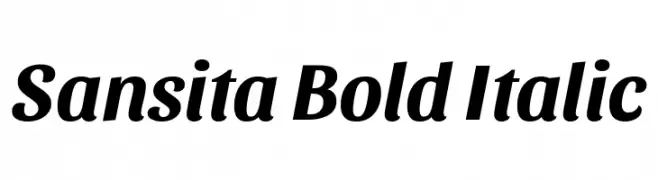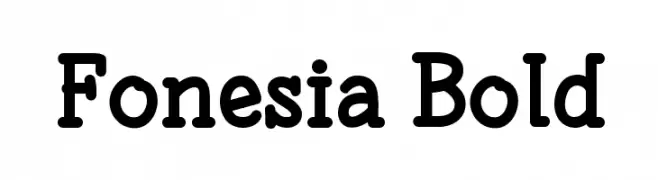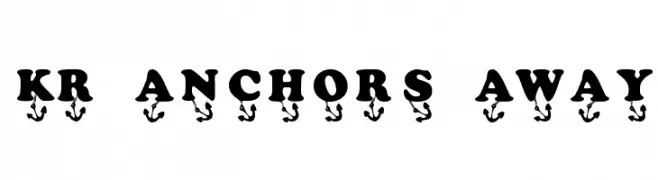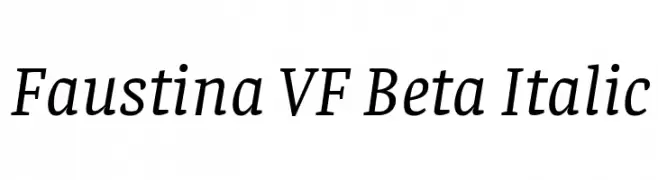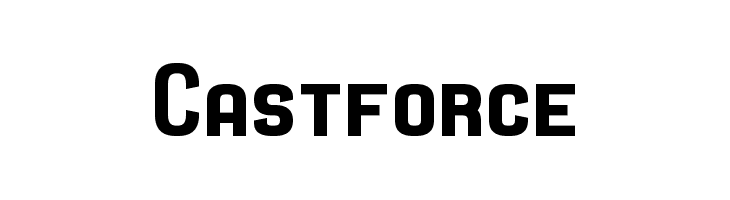
A bold, italicized font with modern elegance and dynamic flair.
A bold, nautical-themed font with integrated anchor motifs.
A bold slab serif font with strong, well-defined characters and a robust presence.
A bold, geometric font with a modern and robust style.
A modern serif font with elegant, refined letterforms and balanced readability.
An elegant serif typeface with a classic italic style and refined stroke contrast.
A modern, narrow sans-serif font with clean, consistent strokes.
A modern, narrow sans-serif font with semi-bold weight and clear readability.
A modern, semi-bold, italic font with a slightly condensed style.